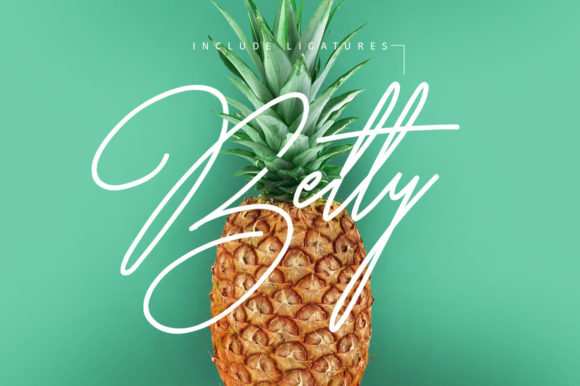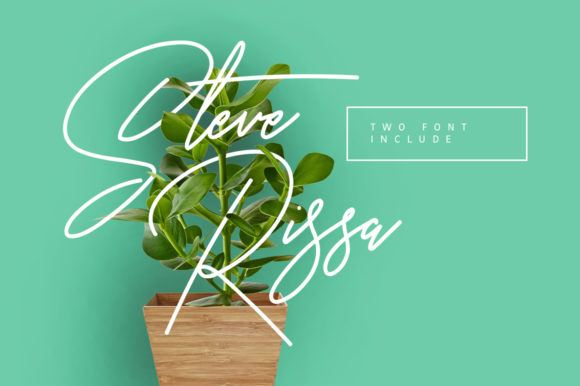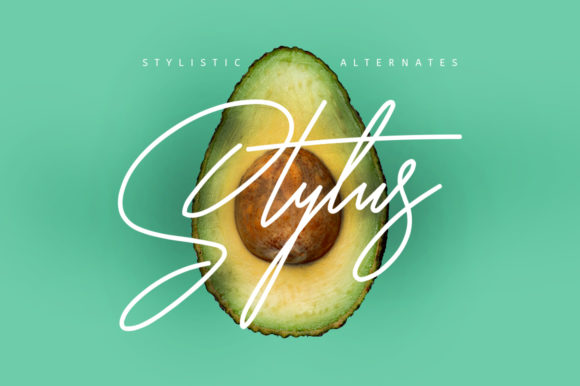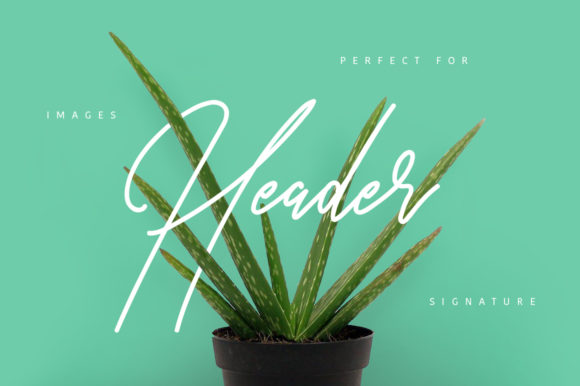
Discovering the Perfect Font for Your Next Creative Project
Have you ever been stuck on a design project, staring at a blank page, wondering what font will bring your idea to life? I know I have. That’s when I stumbled upon Asturria Font, a fresh script font that stole my heart. Its casual charm and effortless readability made me realize that I had been overcomplicating things all along.
Asturria Font is designed to shine in any context, whether it’s a busy background or a standalone headline. Its versatility is what makes it truly valuable for designers. With Asturria Font, you can create a wide range of designs, from elegant invitations to modern logos, without sacrificing readability or style.
So, what makes Asturria Font so special? Its unique blend of casual charm and professional polish makes it the perfect addition to any designer’s toolkit. Whether you’re a seasoned pro or just starting out, Asturria Font is sure to inspire your next creative project.
Asturria Font Key Features
- Character Set: Supports Latin-based languages, including Spanish, English, and many others
- Unique Characteristics: Asturria Font features a unique blend of modern and traditional elements, with a focus on elegance and sophistication
Asturria Font Review
I recently had the chance to work with Asturria Font, and I must say it’s been an interesting experience. Here’s my honest take on this font.
- Beautiful Connection with Nature: Asturria Font’s organic feel and connection with the natural world is undeniably charming. The subtle texture and the irregularities in the letterforms give it a very human touch.
- Unique yet Readable: Despite its unusual style, Asturria Font is surprisingly readable, even in smaller font sizes.
- Emotional Expression: This font is perfect for designs that require a touch of emotional expression, such as wedding invitations, art prints, or even children’s books.
- Not Ideal for Body Text: Asturria Font’s unique style can be overwhelming when used extensively as body text. It may require additional formatting to maintain readability.
- Limited Character Support: The font may not support all languages or special characters, which can be a limitation for international designs.
Asturria Font is a beautiful, unique font that shines when used in the right context. While it may have its limitations, it’s a great choice for designers who want to add a touch of whimsy and emotion to their designs.
Asturria Font Practical Application Guide
To get the most out of Asturria Font, experiment with different font sizes, colors, and styles to create a unique and visually appealing design. You can also combine Asturria Font with other fonts to create a harmonious and balanced design.
Asturria Font is suitable for a variety of design projects, including:
- Editorial and magazine design
- Wedding and event planning materials